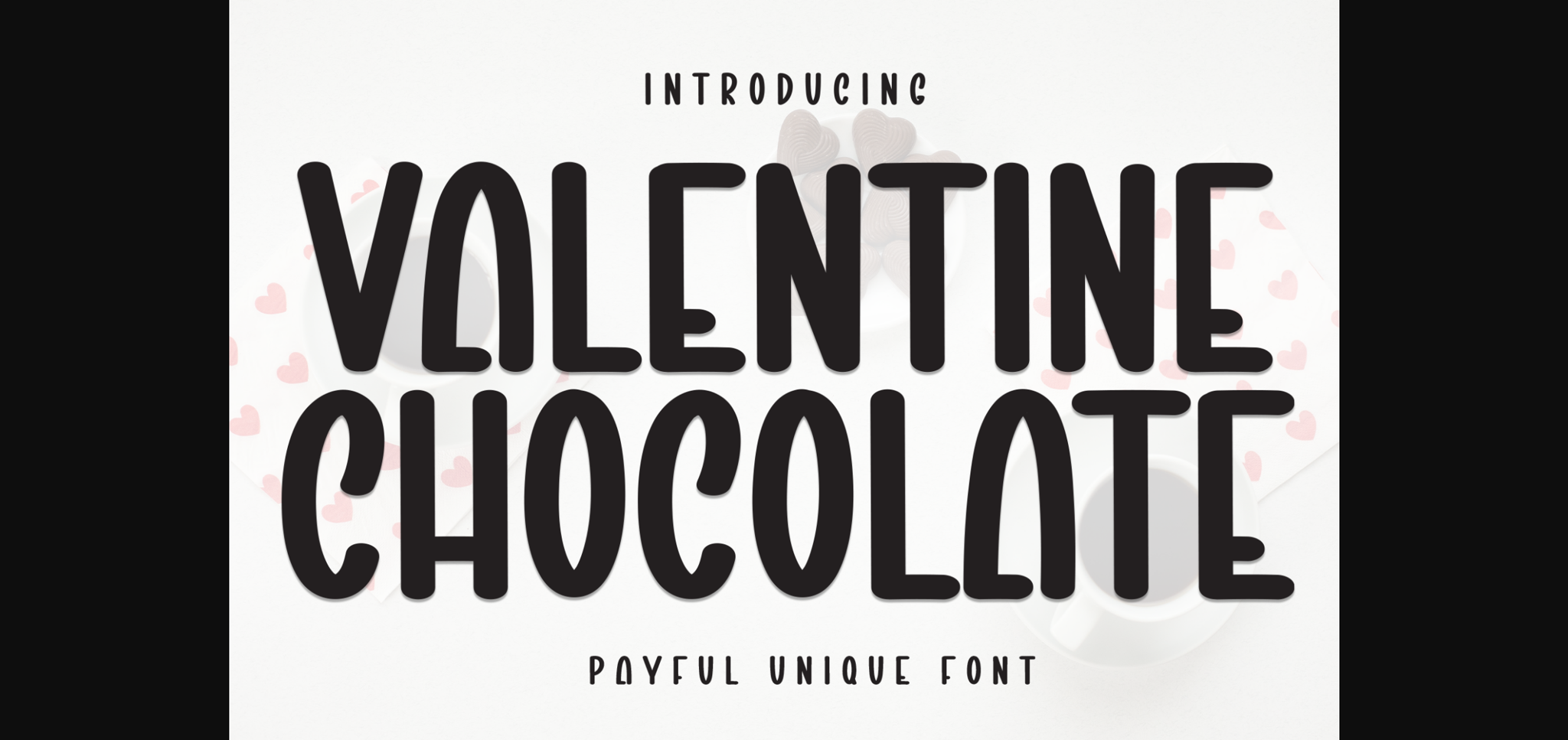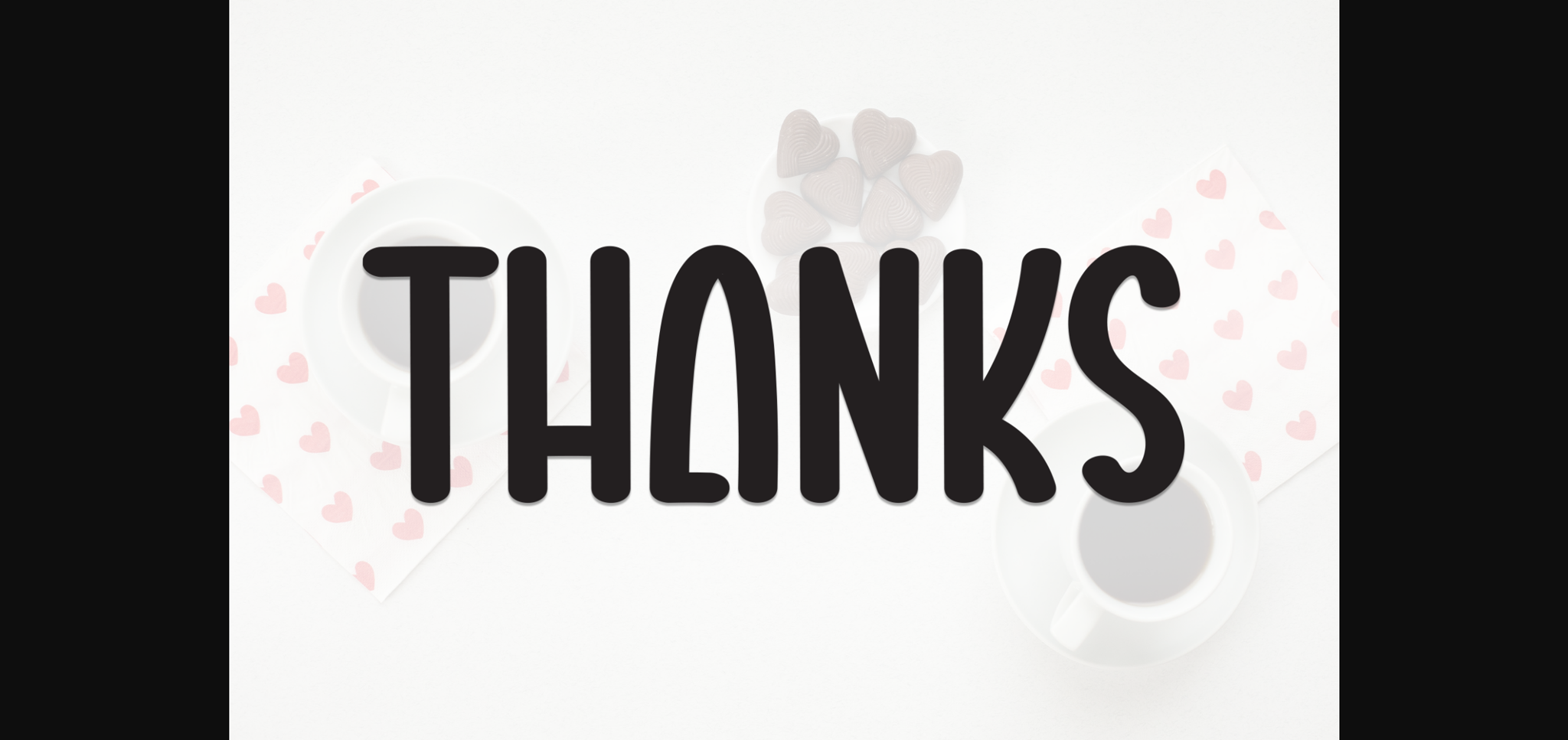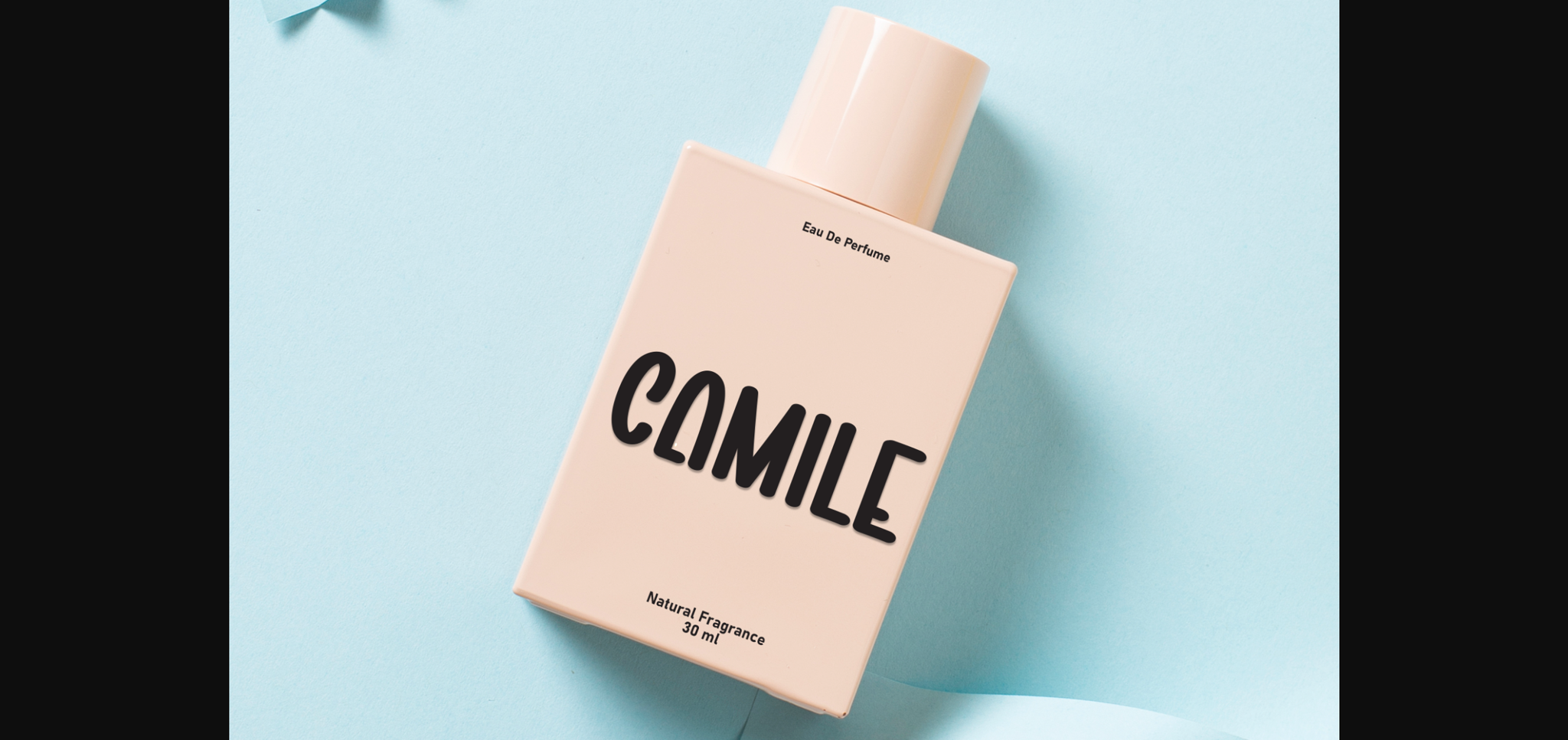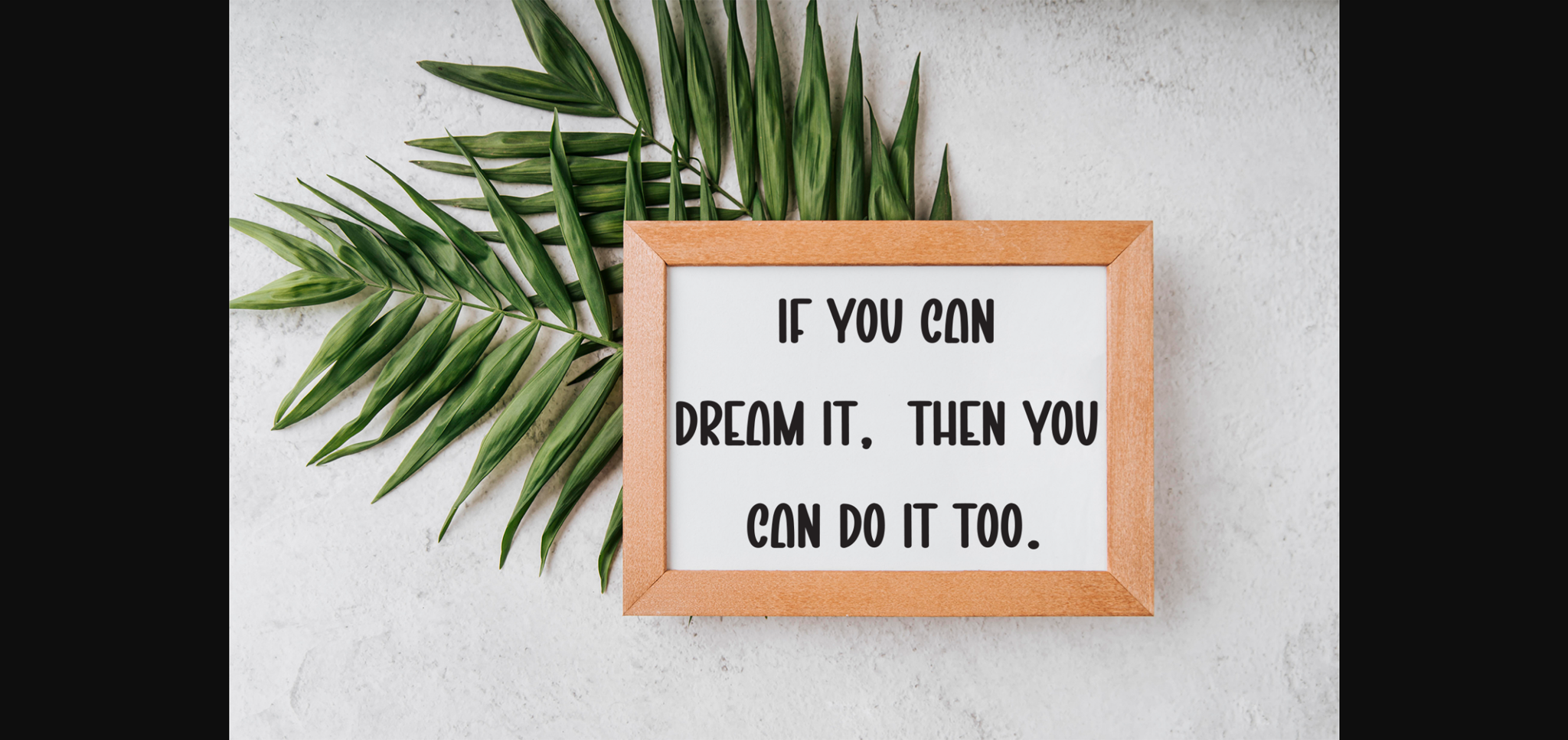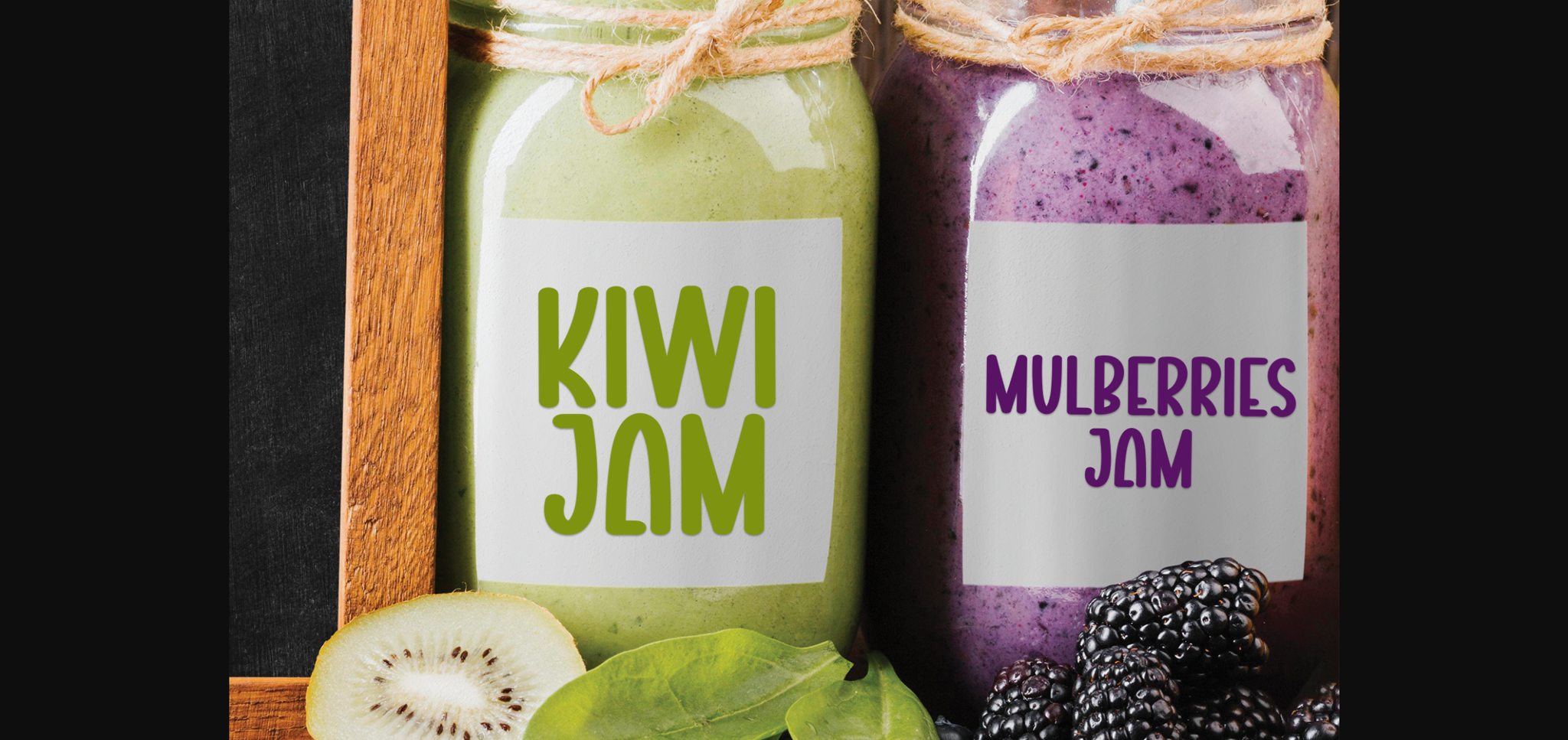
About Valentine Chocolate Font
Valentine Chocolate is a fun and versatile sans-serif font. Whether you’re using it for crafting, digital designing, presentations, or greeting card making, it’s perfect!